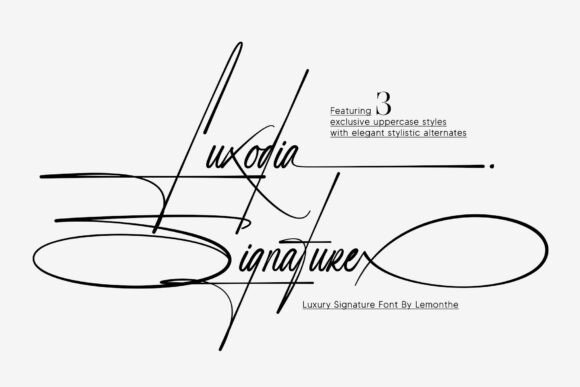
Luxodia Signature: A Luxury Script Font for Branding
The cursor blinked on the blank canvas, a familiar feeling that always precedes both anxiety and excitement. I was working on a new visual identity for a high-end boutique skincare line, a client who wanted to convey purity, elegance, and a touch of old-world craftsmanship without looking dated. The brief was clear: they needed a logo that felt personal, like a handwritten note from a friend, but polished enough to sit proudly on a gold-foiled jar. I scrolled through my library of Fonts, dismissing the standard serif options and the overly decorative display faces that screamed "cliché." Then, I stumbled upon Luxodia Signature.
At first glance, it stood out in the Script Amp category not because it was loud, but because it was confident. This is a luxury signature font designed to bring an elegant and distinctive touch to creative projects. As I typed the brand name into the text box, the flowing strokes and refined curves immediately caught my eye. It wasn't just a collection of letters; it felt like a continuous motion, capturing the essence of a steady hand moving across fine paper.
First Impressions: Testing the Flow
In the early stages of any branding project, the most critical step is seeing how the typeface behaves under pressure. I started by placing Luxodia Signature on a simple white background, then moved it onto a mockup of a glass serum bottle. The difference was striking. The stylish character forms didn't get lost against the complex textures of the packaging; instead, they elevated the entire composition. The ascenders and descenders were perfectly balanced, creating a rhythm that guided the eye naturally from left to right.
What really sold me on this premium font was its versatility within the script genre. Many script fonts struggle with legibility when scaled down or when used in tight spaces. However, Luxodia Signature maintained its clarity even at smaller sizes, making it a viable option not just for a massive storefront sign, but also for the fine print on a product label or a business card. The kerning felt intuitive, requiring minimal manual adjustment to ensure the letters sat comfortably together without touching awkwardly.
Building the Visual Identity
Once I decided to move forward with Luxodia Signature as the primary logo element, the rest of the design process began to fall into place. A strong brand identity relies heavily on visual hierarchy, and this typeface excels at commanding attention without shouting. I used it for the main brand mark, letting its organic lines define the personality of the company. For the supporting text, I knew I needed something that would provide contrast without competing.
This led me to explore font pairing strategies. Since Luxodia Signature is such a dominant display font, I paired it with a clean, geometric sans serif font. The juxtaposition worked beautifully; the modern, structured lines of the sans-serif grounded the fluidity of the script, creating a look that was both contemporary and timeless. This combination proved effective across various design assets, from the website headers to the social media graphics.
I tested the pairing on a digital mockup for an Instagram post. The headline, written in Luxodia Signature, popped instantly against a soft beige background, while the body copy in the sans-serif remained highly readable. The result was a cohesive aesthetic that communicated the brand's values instantly. It’s often said that a logo is the face of a brand, and with this creative font, the face is undeniably charming and professional.
Beyond the Logo: Packaging and Print
One of the biggest challenges in packaging design is ensuring the typography translates well from screen to physical material. I took the files for Luxodia Signature and applied them to a series of printed materials, including a hang tag and a thank-you card included in the shipping box. The font's intricate details held up remarkably well during the print simulation. The refined curves didn't blur, and the thin strokes remained crisp, suggesting that it would perform excellently with high-quality printing techniques like letterpress or foil stamping.
For the shop signage, I imagined the font rendered in brushed metal. The way the letters connect creates a sense of unity, which is perfect for a boutique environment where every detail matters. It adds a layer of sophistication that generic handwritten fonts simply cannot achieve. When a customer walks into a space and sees a nameplate crafted with such care, their perception of the products inside shifts immediately. They expect quality, and Luxodia Signature delivers that promise visually.
Practical Considerations for Designers
While the aesthetic appeal of Luxodia Signature is undeniable, practical application is just as important for any freelance designer or studio. Before committing to a full brand rollout, I recommend testing the font in various contexts. Check how it looks on dark backgrounds versus light ones. Experiment with different weights if available, though this particular luxury signature font shines in its single, optimized weight. Always review the ligatures and alternates; these small details can make a significant difference in customizing the logo for specific needs.
Whether you are crafting a logo for a handmade soap shop, designing an editorial layout for a fashion magazine, or creating merchandise for a creative studio, the right font can make all the difference. Luxodia Signature isn't just a set of characters; it is a tool for storytelling. Its ability to evoke emotion and establish trust makes it a valuable asset in any designer's toolkit. In a world saturated with generic visuals, choosing a font with such distinct personality helps your project stand out, ensuring that your brand is not just seen, but remembered.